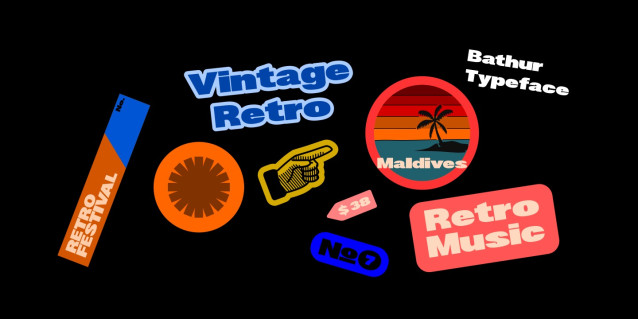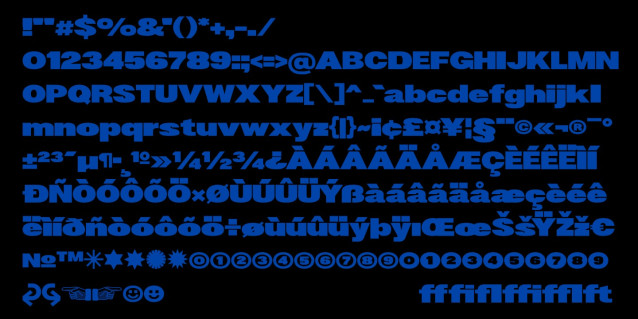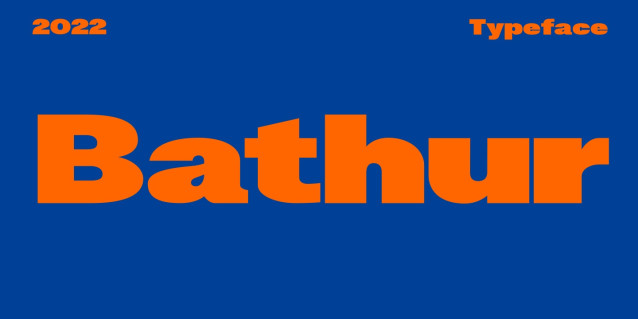
Bathur Font
Bathur Font – Inspired by Brutalism Design, this font is designed with attention to the value of authenticity and harmonious beauty. made with a wider size which will add value to the authenticity of this font. suitable for use in graphic designs such as posters, stickers, especially Retro-themed designs and Brutalism designs